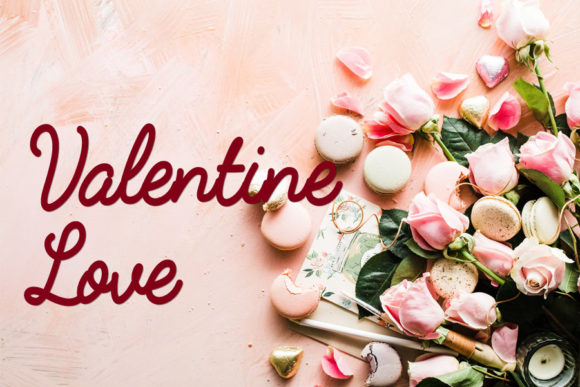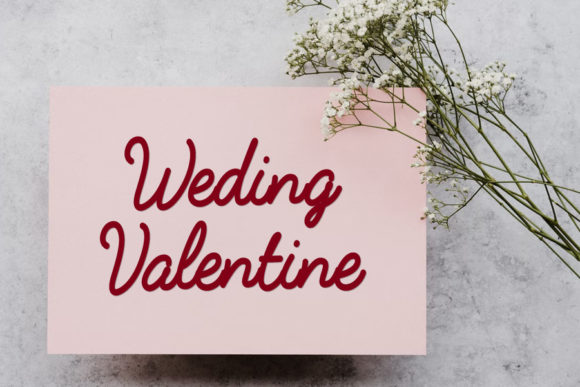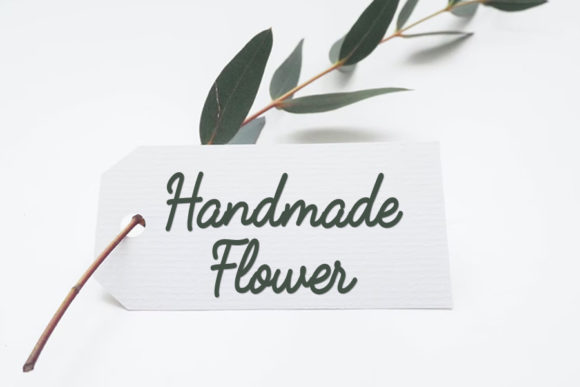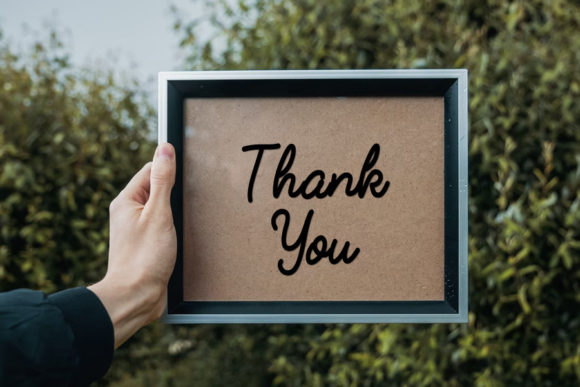
Introduction to Flower Valentine Font
Flower Valentine is a delicate and chic script font.
Key Features of Flower Valentine Font
Why Choose Flower Valentine Font?
Flower Valentine Font offers exceptional quality and versatility, making it a valuable addition to your design toolkit. Whether you’re creating for personal projects or commercial use, Flower Valentine Font delivers professional results.